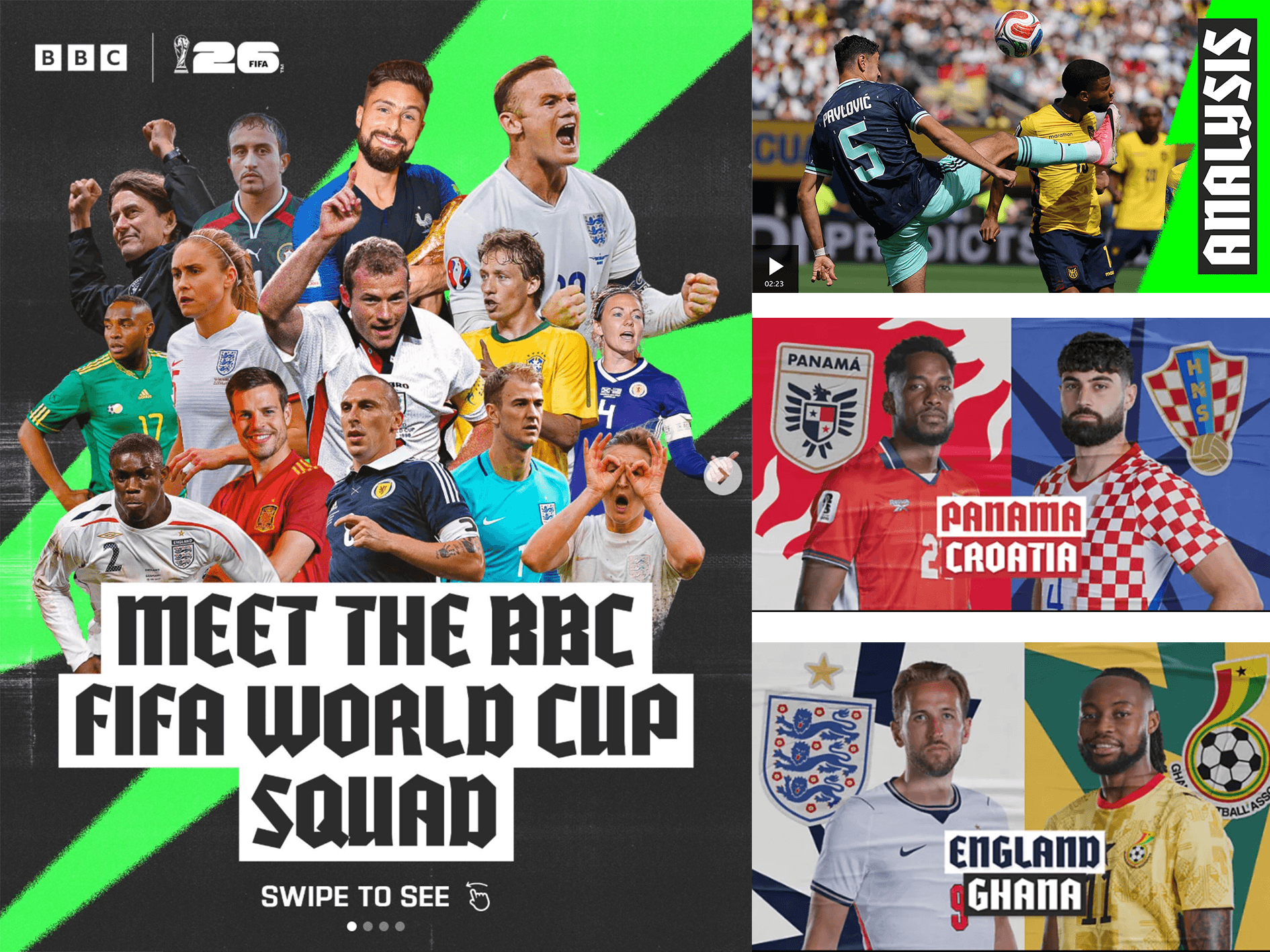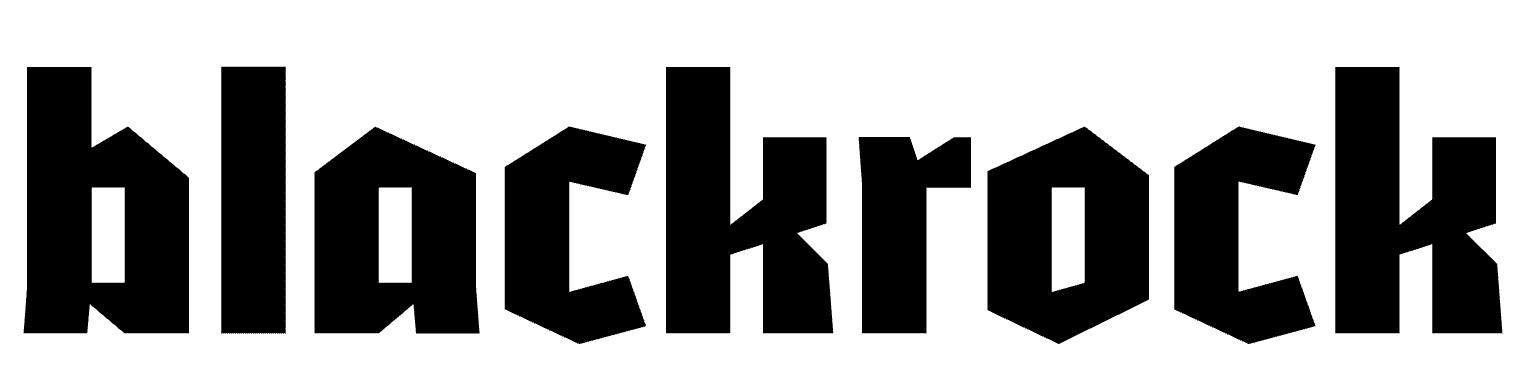
Are you in the full throes of the World Cup? Or you might be glancing from the sidelines keeping an eye on it. Are you like me? I love looking at the designs of the kits and the footwear. A lot of pink boots out there on the field. Did you know that FIFA had the typeface created especially for the 2026 World Cup? But what’s caught my eye are the graphics from the BBC. They’ve used a typeface with a gothic feel – Blackrock. So the font of the month is:
Inspired by blackletter typefaces. What are they I hear you ask…? Blackletter typefaces are also known as Gothic or Old English typefaces. A family of fonts that are inspired by the dark, calligraphic letters of the Middle Ages. Blackrock is designed by Jeff Schreiber and the BBC added splashes of neon to give the graphics a fun, dynamic feel. You can try it for yourself for free here.
I was sad to hear of the passing of David Hockney this month. The tributes came in from across the globe. Creative Boom gathered a collection of illustrated portraits – artists from around the world sharing how they saw and interpreted him. A beautiful way to celebrate his legacy. I love Nia Gould's take on it. She switched it up to cats!
Whether you're watching every match or just catching the highlights, the World Cup is a reminder that design is everywhere. On the pitch, on the screen and in the stands. Next time you're watching, take a moment to look at the lettering, the designs and those colours. Until next time, keep spotting the good stuff.